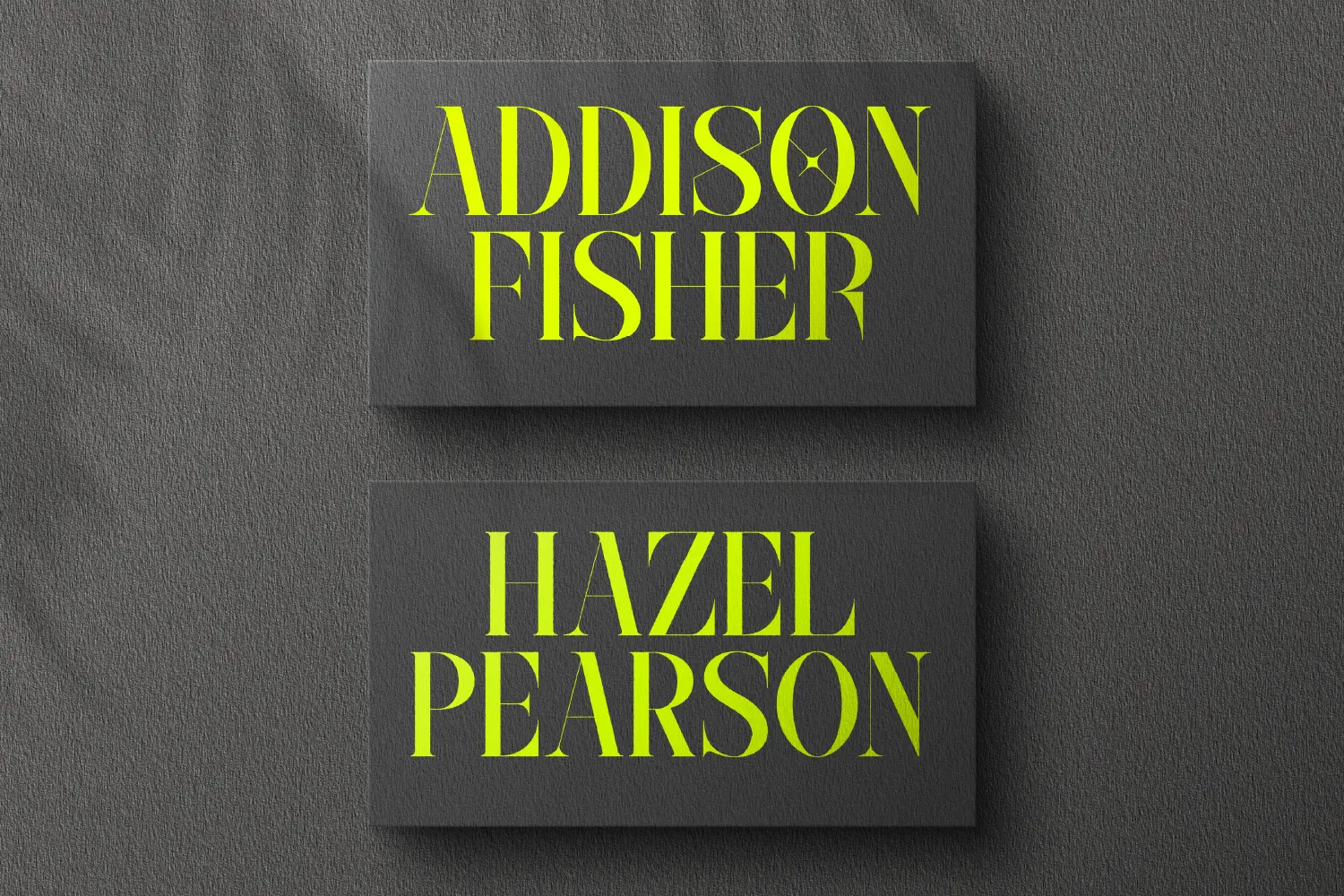
Serif fonts have long been the foundation of professional design, known for their classic appeal and excellent readability. Their distinctive “feet” or strokes at the ends of letters create a sense of tradition and sophistication, making them a popular choice for formal and elegant designs. From corporate branding to book typography, serif fonts enhance the visual appeal while maintaining clarity. Their structured form makes them ideal for conveying credibility and authority, which is essential for professional applications. Whether used in print or digital media, serif fonts continue to be a staple in high-quality design work.
In this article, we will explore seven classic serif fonts from Rvandtype that can bring a refined and polished touch to your projects. These fonts are carefully crafted to provide a perfect balance of style and functionality. Each typeface offers unique characteristics, allowing designers to choose the best fit for their creative needs. Whether you are working on editorial layouts, luxury branding, or business presentations, these serif fonts will enhance your work with their timeless elegance. Let’s dive into the top seven serif fonts that can elevate the professionalism of your designs.
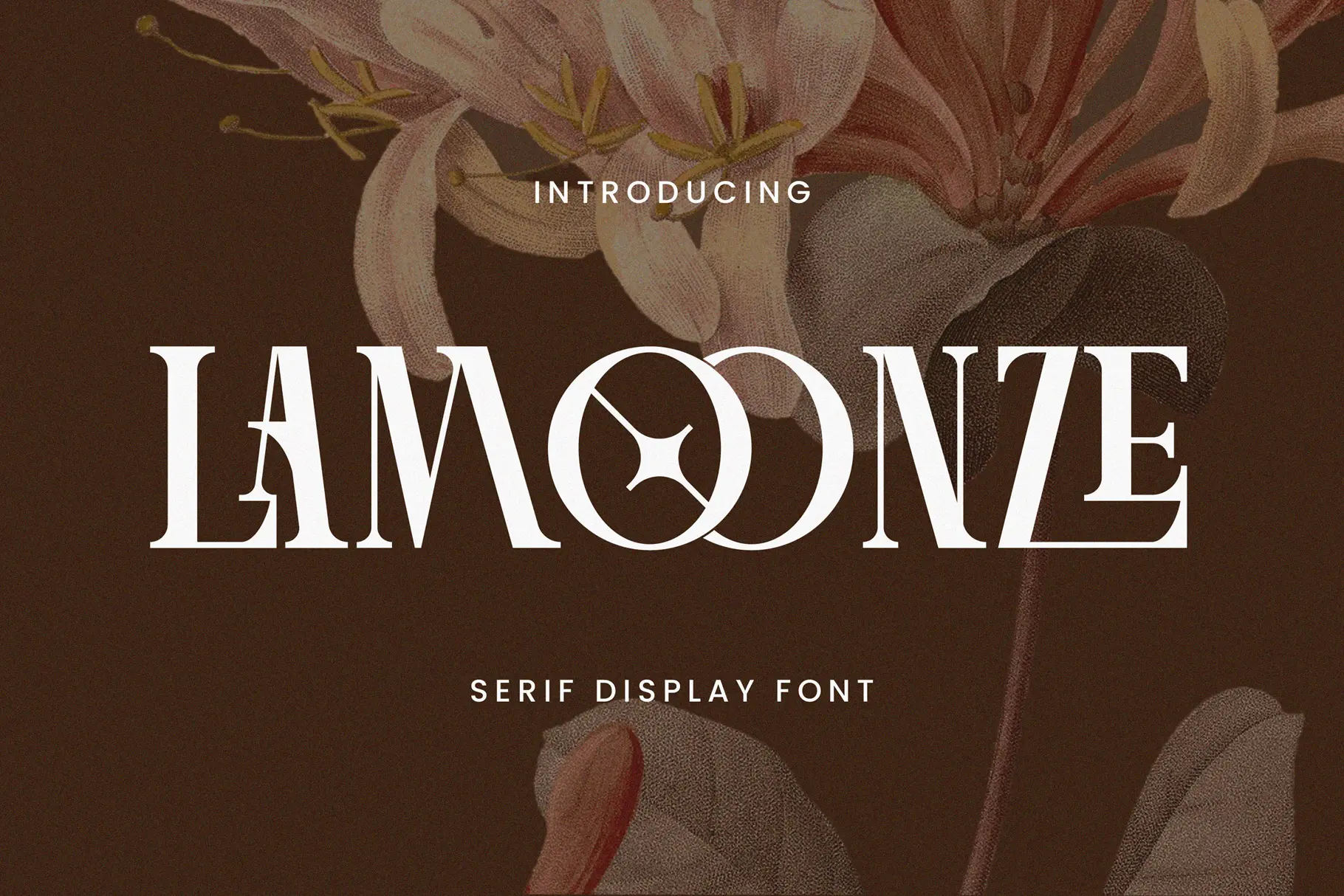
Lamoonze is a sophisticated serif display font that exudes elegance and refinement. Its well-balanced letterforms and subtle serifs create a visually appealing typeface that adds a touch of class to any design. Whether used in headlines, logos, or editorial layouts, Lamoonze commands attention without being overly decorative. The fontโs graceful structure ensures that it remains readable while maintaining a luxurious and stylish feel. This makes it an ideal choice for designers looking to add a sense of professionalism and sophistication to their work.
The versatility of Lamoonze allows it to adapt seamlessly to both modern and traditional design contexts. Its clean lines and well-proportioned letterforms enhance readability, making it suitable for a wide range of applications. Whether used in high-end branding, fashion magazines, or premium product packaging, Lamoonze offers a balance of beauty and practicality. The fontโs ability to complement various design elements ensures that it integrates effortlessly into print and digital formats. This flexibility makes it a reliable option for designers who need a font that maintains its elegance across different mediums.
Incorporating Lamoonze into your design toolkit provides a timeless aesthetic that resonates with audiences seeking sophistication and luxury. Its refined details and polished appearance create a lasting impression, elevating the professionalism of any project. Whether used in corporate branding or elegant invitations, Lamoonze remains a strong choice for creating visually striking typography. Its enduring appeal ensures that your designs stay relevant and impactful in an ever-evolving design landscape. By using Lamoonze, you can craft designs that exude confidence, style, and a sense of timeless beauty.
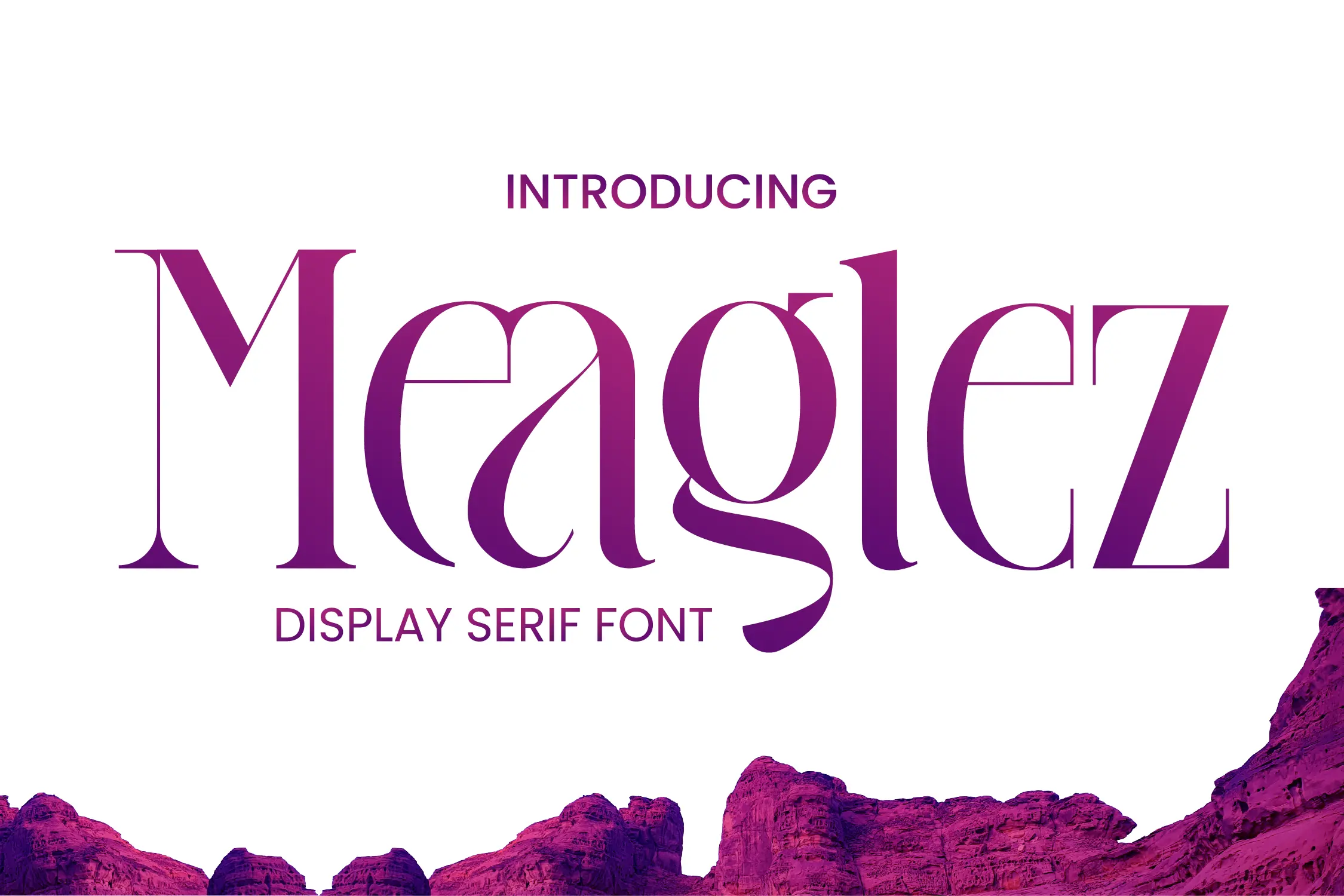
Meaglez Display Font offers a contemporary take on classic serif typography. Its sharp serifs and high contrast between thick and thin strokes create a dynamic visual presence. This font is particularly well-suited for headlines, posters, and branding materials that aim to make a bold statement.
Despite its modern flair, Meaglez retains the readability and elegance characteristic of traditional serif fonts. Its distinctive features make it a favorite among designers looking to infuse a sense of innovation into their projects without sacrificing professionalism.โ
Utilizing Meaglez in your designs can bridge the gap between classic and contemporary aesthetics, offering a fresh perspective while maintaining a professional tone. Its adaptability ensures it complements a wide range of design styles and applications.โ
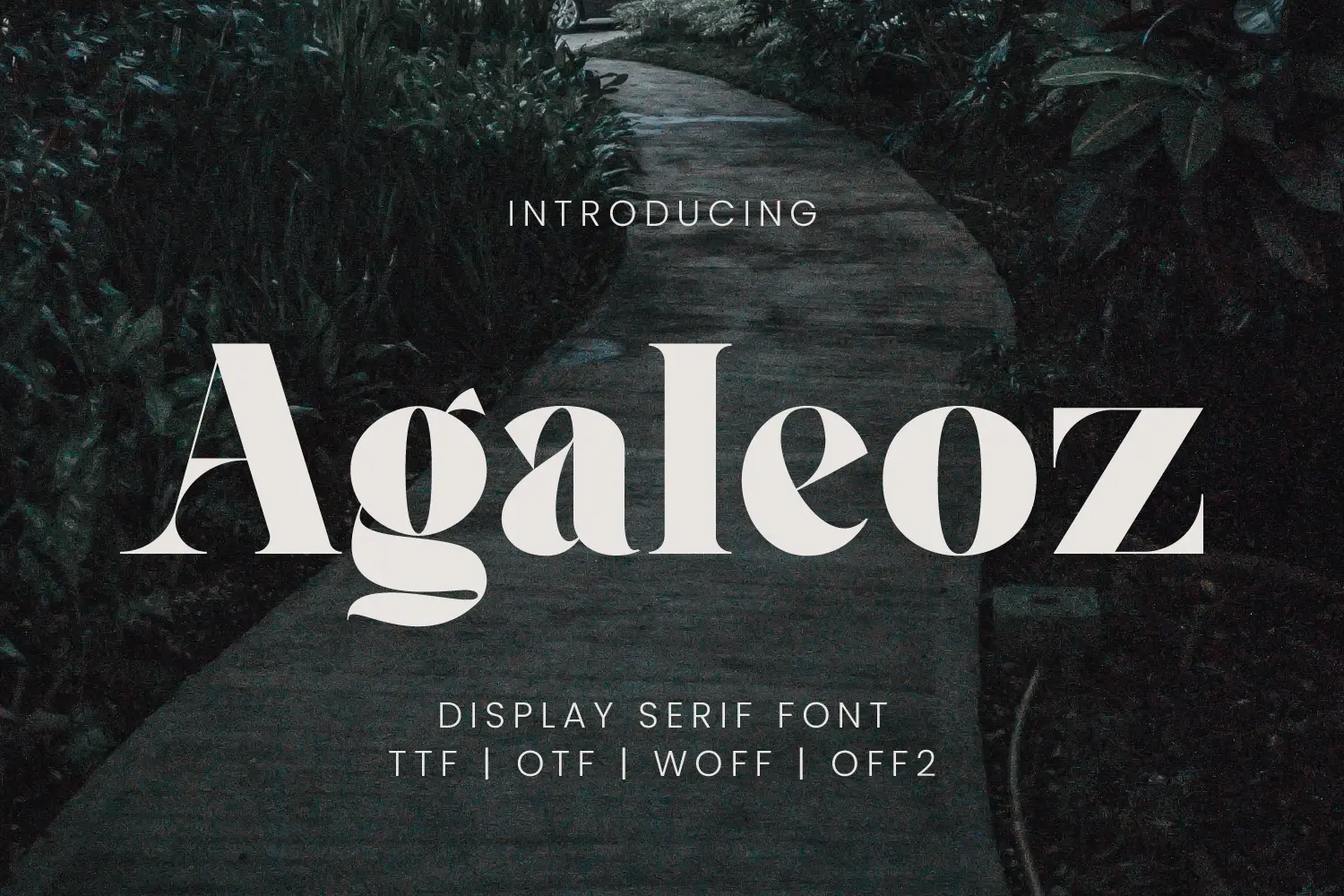
Agaleoz Display Font embodies the essence of vintage typography with a modern twist. Its ornate serifs and intricate detailing evoke a sense of nostalgia, making it ideal for projects that aim to capture a retro or classic feel. This font excels in applications such as book covers, posters, and branding for artisanal products.
The careful craftsmanship of Agaleoz ensures that each letterform contributes to a cohesive and harmonious design. Its unique character sets it apart from more conventional serif fonts, offering designers an opportunity to create distinctive and memorable visuals.
Incorporating Agaleoz into your design repertoire can add depth and personality to your projects, appealing to audiences who appreciate the fusion of historical charm and contemporary design elements.โ
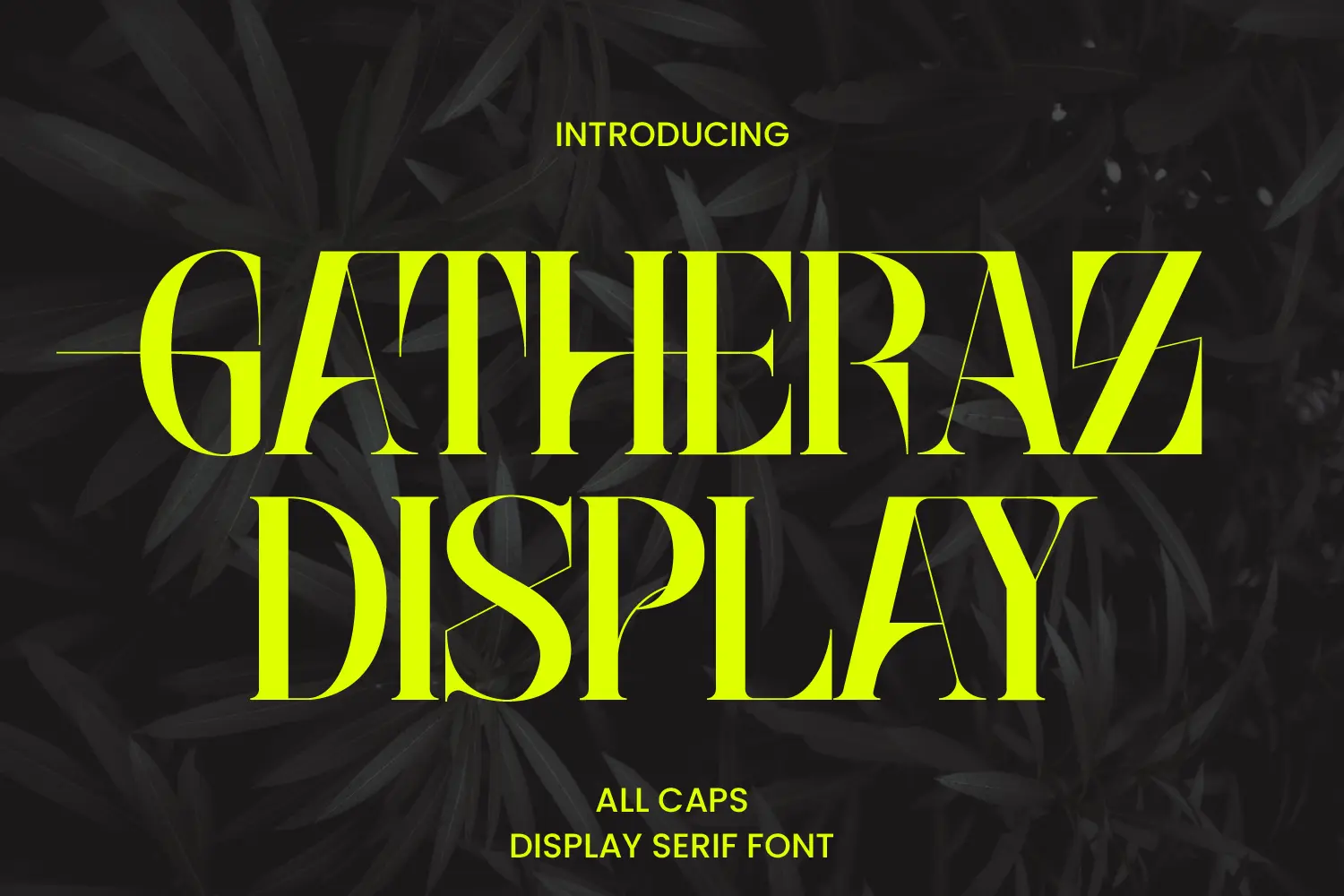
Gatheraz is a display serif font that combines boldness with elegance. Its pronounced serifs and strong presence make it an excellent choice for headlines, logos, and other prominent design elements. The font’s design balances traditional serif features with modern sensibilities, resulting in a versatile typeface suitable for various applications.
The robust structure of Gatheraz ensures legibility even at larger sizes, making it particularly effective for display purposes. Its aesthetic appeal lies in its ability to convey strength and sophistication simultaneously.โ
Employing Gatheraz in your designs can impart a sense of authority and refinement, resonating with audiences seeking both impact and elegance in visual communication.โ
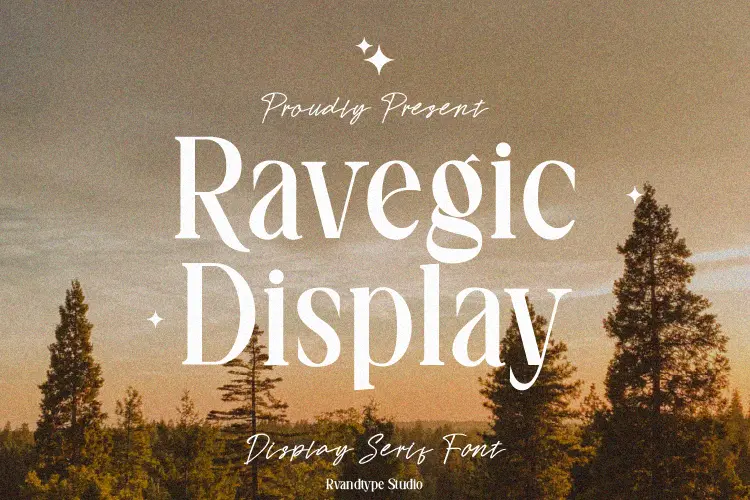
Are serif fonts suitable for digital and print media?
Yes, serif fonts work well in both digital and print formats, ensuring readability and a refined aesthetic across different platforms.
Can I combine serif fonts with other font styles?
Absolutely! Serif fonts pair beautifully with sans-serif or script fonts, creating contrast and enhancing visual hierarchy in your designs.